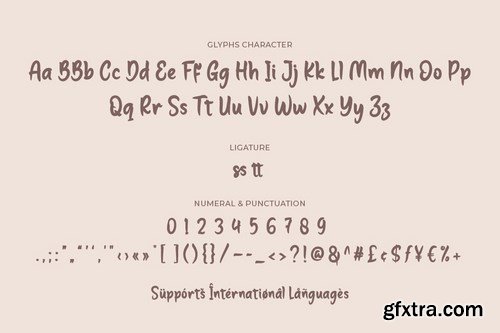
Our newest font, Belly, is now available. This font appears lovely in the text and title of your outstanding design project because it was made with a relaxed, yet attractive and graceful touch of a hand.